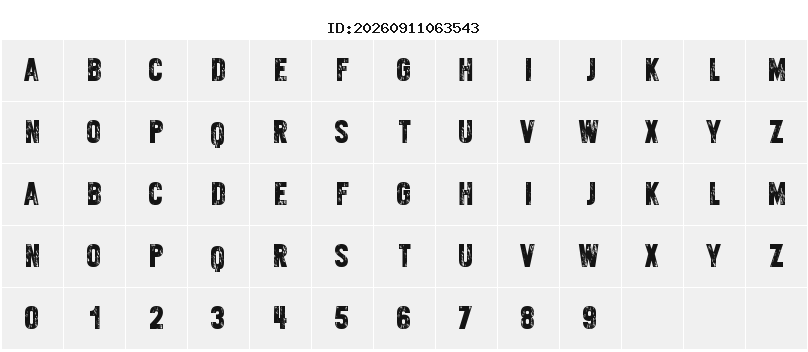
Varietykiller Preview
• Font Name: Varietykiller
• Full Font Name: Varietykiller
• Version: Version 1.00 October 20, 2013, initial release
About Varietykiller.otf
Varietykiller.otf is a modern, elegant sans-serif font designed for ultimate readability and visual harmony. Perfect for branding, headlines, web design, and print materials.